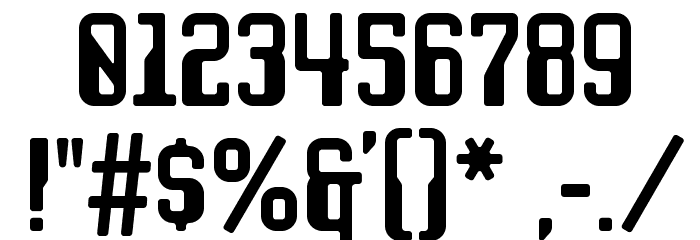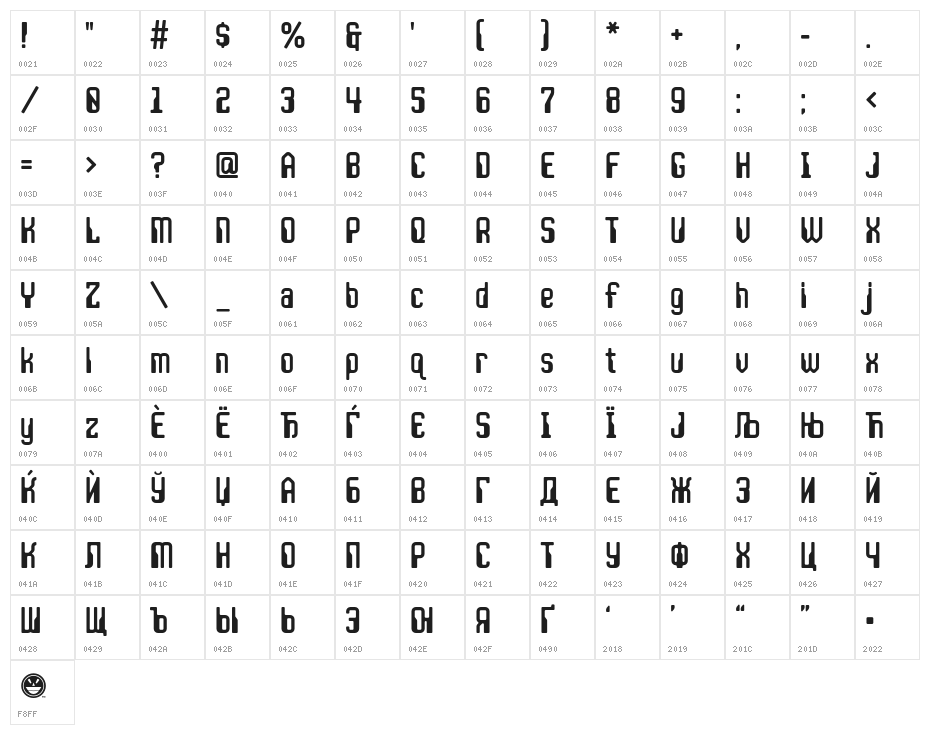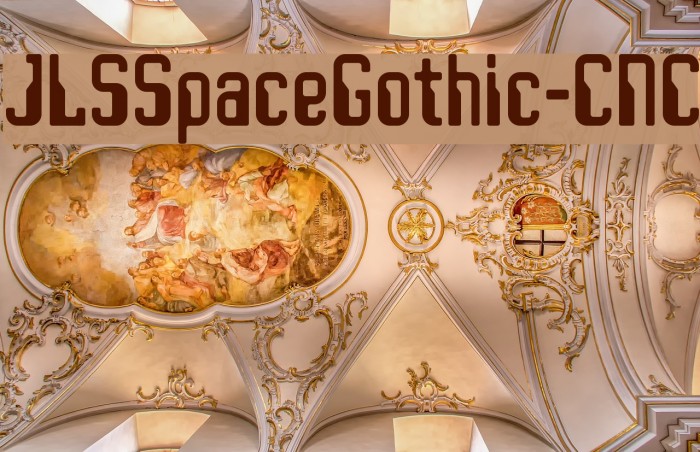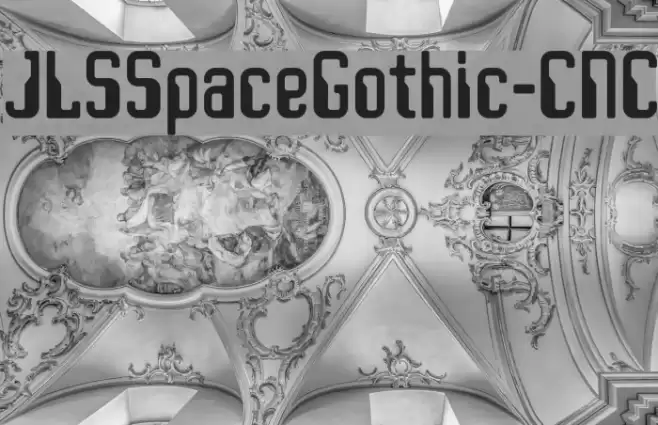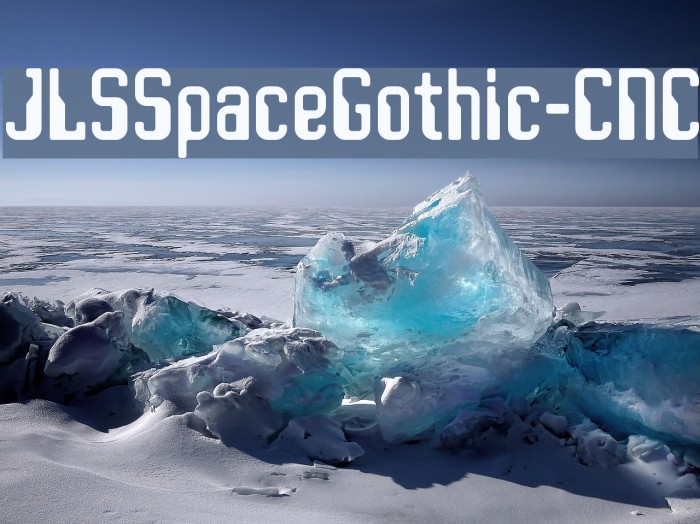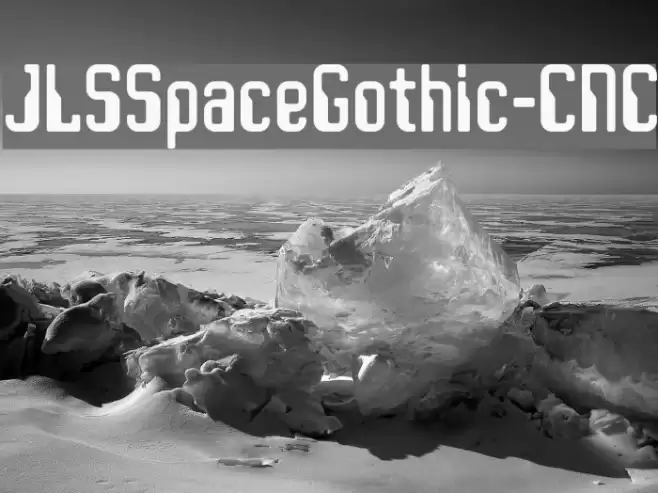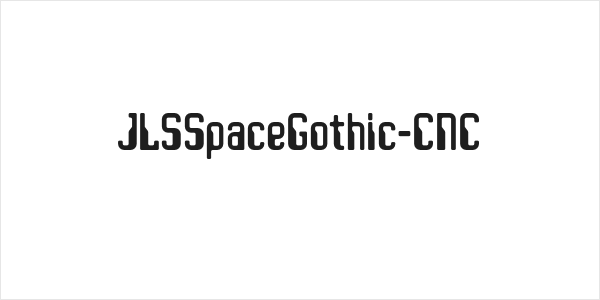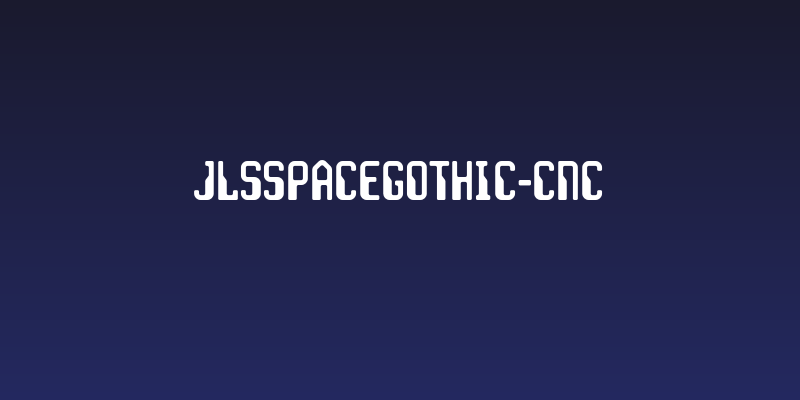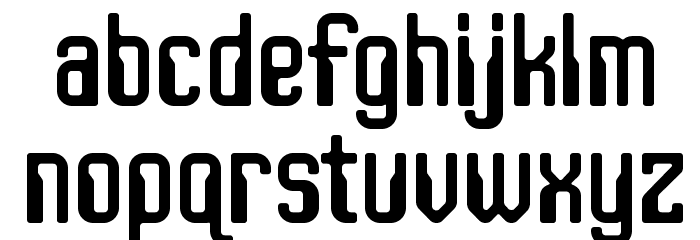
JLSSpaceGothic-CNC Font
JLSSpaceGothic-CNC Description
This font features a bold and futuristic design, characterized by its geometric shapes and sharp edges. The uppercase letters are uniform in height, with a distinct block-like appearance that conveys strength and modernity. The lowercase letters maintain a similar style, offering a cohesive look across different text cases. Numbers are equally bold and clear, making them highly legible. Special characters are designed to match the overall aesthetic, ensuring consistency throughout. This font's unique style makes it suitable for projects that require a modern and edgy look.
| Proposed Projects | Ideal for sci-fi themed projects, technology branding, video game titles, and modern posters. |